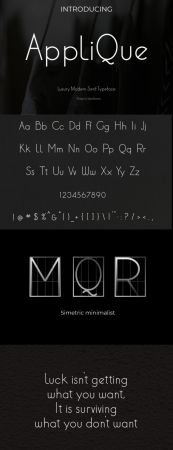
Applique is a minimal, yet elegant sans serif font. Suitable to a wide variety of designs due to its neat and simple style, Applique has the potential to become your favorite go-to font, no matter the occasion!